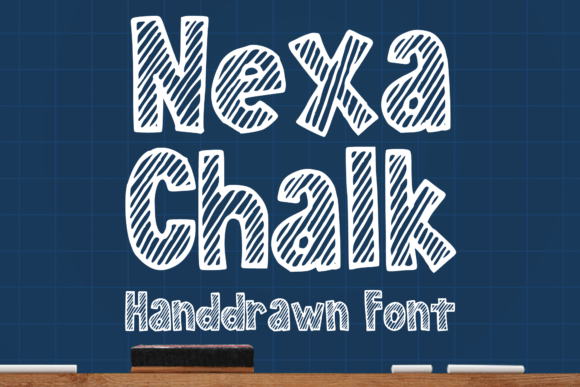
Nexa Font Download- Nexa Chalk Font Download : Nexa Chalk Font is more than just a typeface — it’s a creative tool that brings a playful, handcrafted look to any design. Inspired by the natural feel of real chalk on a blackboard, this font instantly transforms ordinary text into something fun, approachable, and full of character.
If you’ve been hunting for a chalk font that feels stylish yet casual, Nexa Chalk is a great choice. From t‑shirt designs and school projects to eye‑catching logos and comic headlines, it adds a unique handmade flair that stands out.
What is Nexa Chalk Font?
Nexa Chalk is part of the well‑known Nexa font family designed by Fontfabric. Unlike the original Nexa, which is a clean and modern sans‑serif, Nexa Chalk is re‑imagined with rough, shaded, hand‑drawn lines that mimic real chalk on a blackboard.
This unique design makes it:
Playful and artistic
Instantly eye‑catching
Perfect for display use, titles, logos, or anywhere you want to add personality
It combines geometric structure with handcrafted imperfection, giving your text a stylish yet friendly vibe.
Why Designers Love Nexa Chalk
✨ Natural & Authentic:
Looks like it was drawn by hand, which adds warmth and humanity.
🖌 Playful & Fun:
Perfect for projects where you want to keep the tone casual, friendly, or youthful.
🎨 Versatile:
Works in digital and print — menus, posters, packaging, and even web banners.
📚 Educational Feel:
Instantly reminds viewers of chalkboards and classrooms, great for schools, learning apps, and kids’ projects.
🧢 Urban & Trendy:
Chalk textures are popular in modern branding and street‑style designs.
Best Uses for Nexa Chalk Font
Thanks to its textured, handcrafted look, Nexa Chalk is perfect for a huge variety of creative projects:
✅ Stickers & Merchandise:
Short words or slogans in Nexa Chalk look bold and personal on stickers, mugs, and phone cases.
✅ T‑shirt Designs:
Catchphrases, team names, or playful quotes in chalk texture feel casual and stylish.
✅ Logos & Branding:
Especially for cafés, bakeries, handmade shops, or kids’ brands.
✅ Magazine & Book Covers:
Comic titles, craft magazines, or cookbooks get extra character.
✅ Educational Projects:
Classroom posters, workbooks, and learning materials for children.
✅ Comics & Cartoons:
Bold, hand‑drawn style fits perfectly with illustrated content.
✅ Social Media Graphics:
Quote posts, event promos, or handmade product announcements.
Nexa Chalk Font helps your text stand out while still feeling authentic and creative.
Tips for Designing with Nexa Chalk Font
✅ Use Dark Backgrounds:
White or pastel chalk text pops beautifully on black, navy, or deep green.
🎨 Pair with Simpler Fonts:
Combine Nexa Chalk headlines with clean sans‑serif or serif body text for balance.
🖼 Add Chalkboard Textures:
Realistic background textures help the chalk effect feel authentic.
📏 Keep Text Short & Impactful:
Nexa Chalk works best for bold words, titles, and logos rather than paragraphs.
🌈 Experiment with Colors:
Though classic chalk is white, try muted pastels or bright neon for creative looks.
Creative Design Ideas with Nexa Chalk Font
🧁 Café Menu Board:
Daily specials written in Nexa Chalk on a dark wooden background.
🎉 Party Invitation:
“Let’s Celebrate!” headline in big, bold Nexa Chalk letters.
📱 Instagram Quote Post:
Playful saying like “Good vibes only” with chalk texture.
📦 Handmade Packaging:
“Fresh & Organic” logo in Nexa Chalk over kraft paper.
📚 Kids’ Learning Poster:
Alphabet or numbers in fun, large chalk letters.
Why Nexa Chalk Feels Unique
Lots of chalk fonts look rough or messy, but Nexa Chalk keeps a structured, geometric shape under its texture. This makes it:
More modern than many purely handwritten chalk fonts
Easier to read at different sizes
Stylish enough for branding and professional design
It combines nostalgia and modern design in a single typeface.
FAQs About Nexa Chalk Font
Q1: Is Nexa Chalk Font free?
No — it’s a paid, commercial font. A license is needed for personal or commercial use.
Q2: Can I use Nexa Chalk for my brand logo?
Yes — as long as you purchase the commercial license.
Q3: Does Nexa Chalk include numbers & symbols?
Usually yes, plus punctuation, uppercase, lowercase, and sometimes multilingual support.
Q4: Is it suitable for paragraphs?
It’s better for headlines, logos, or short phrases due to its textured style.
Final Thoughts: Add Playful Handmade Charm with Nexa Chalk
Nexa Chalk Font is more than letters — it’s a way to bring handcrafted, creative energy into your designs. From menus and stickers to comics and social media, its chalk‑inspired texture makes any project feel friendlier and more unique.